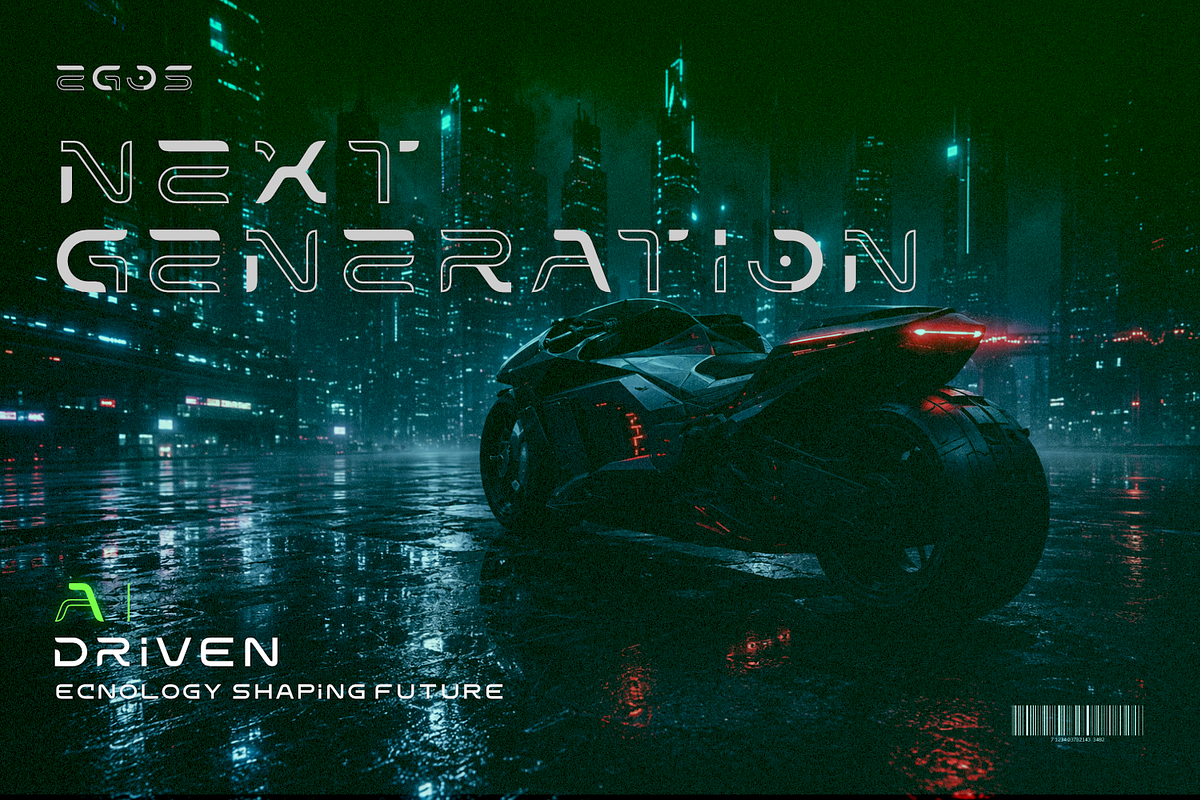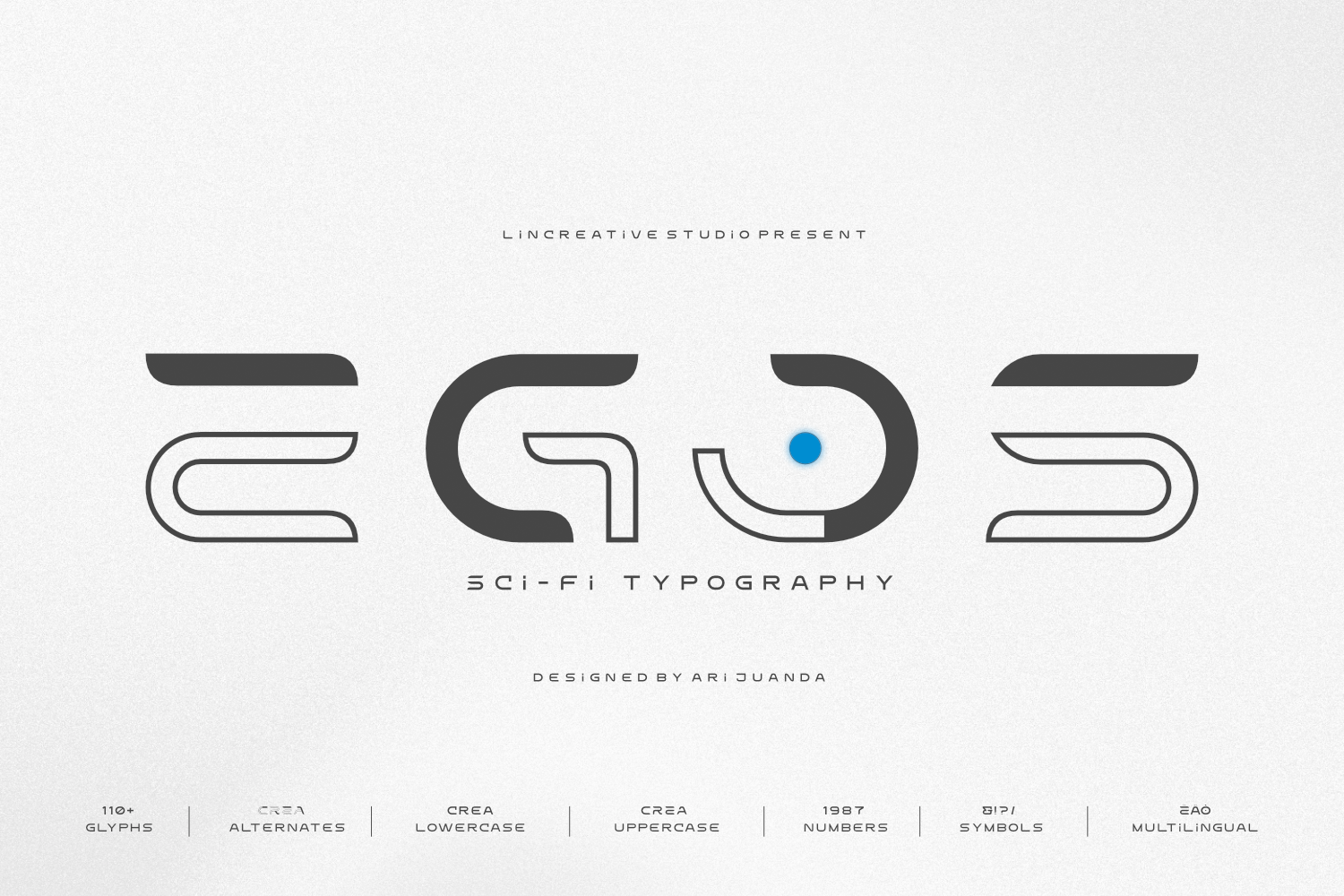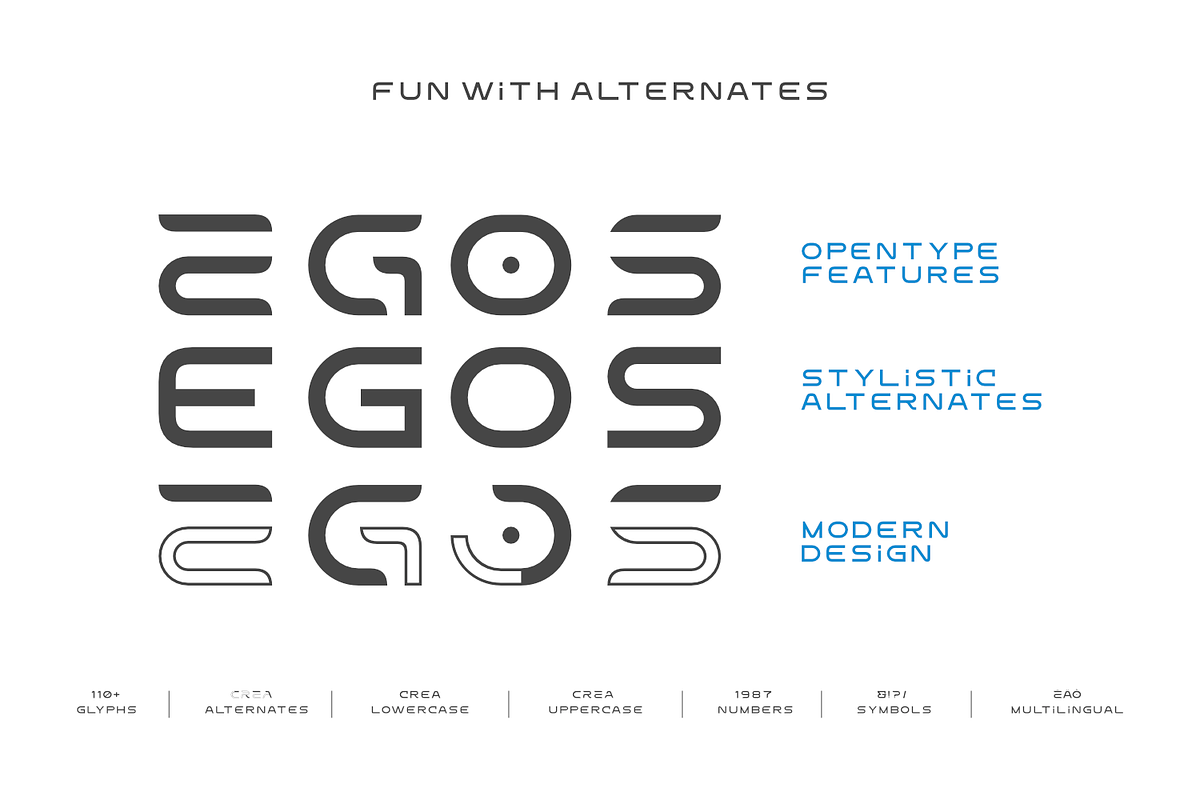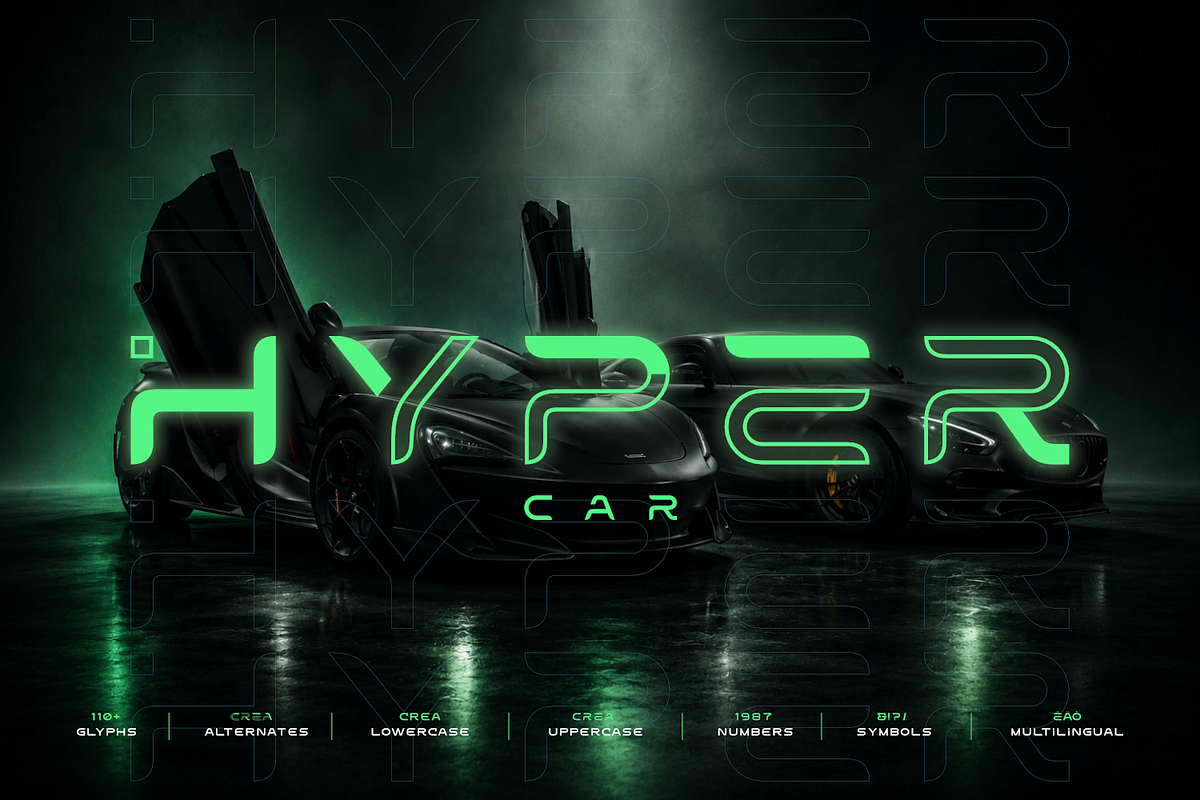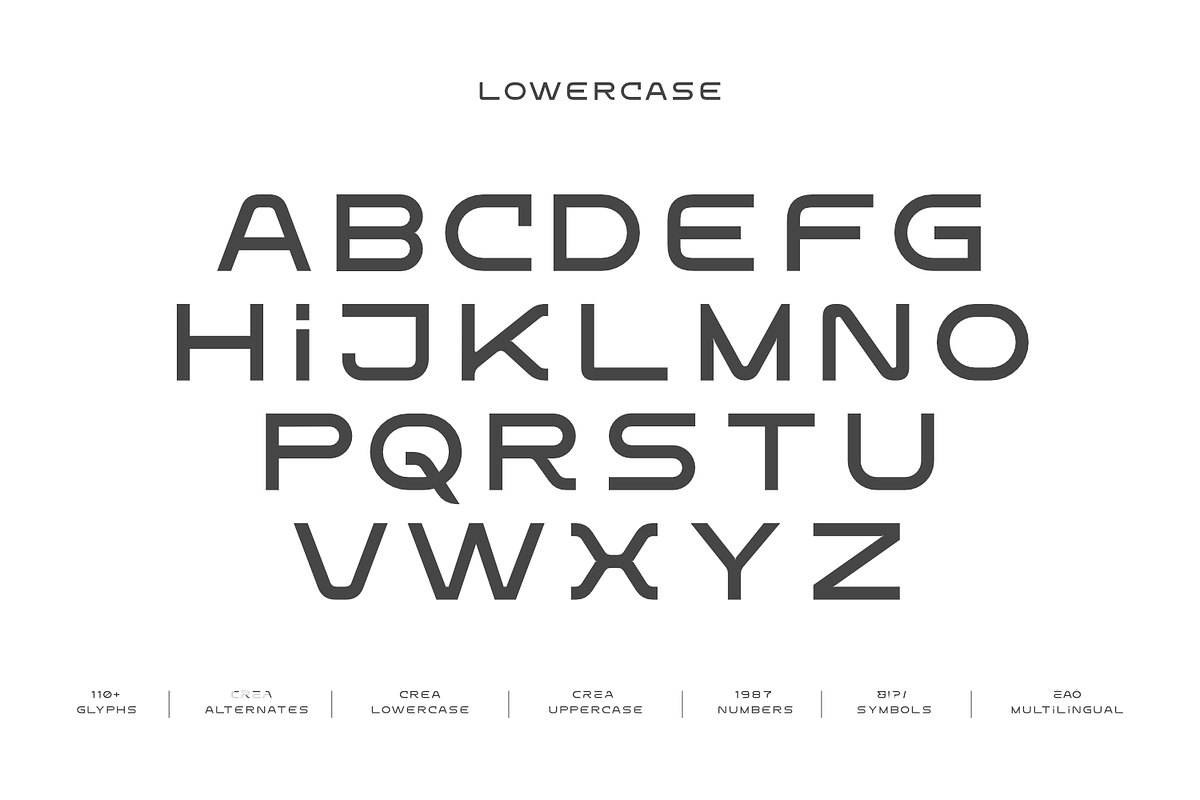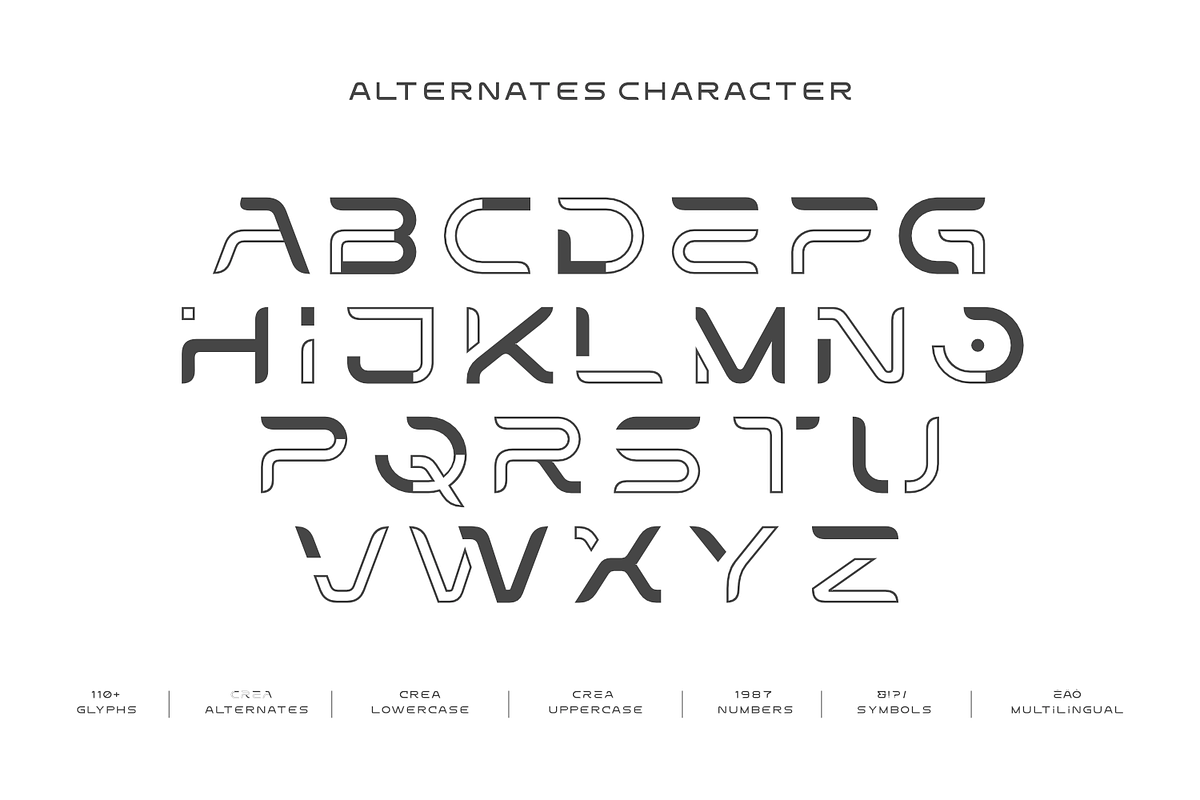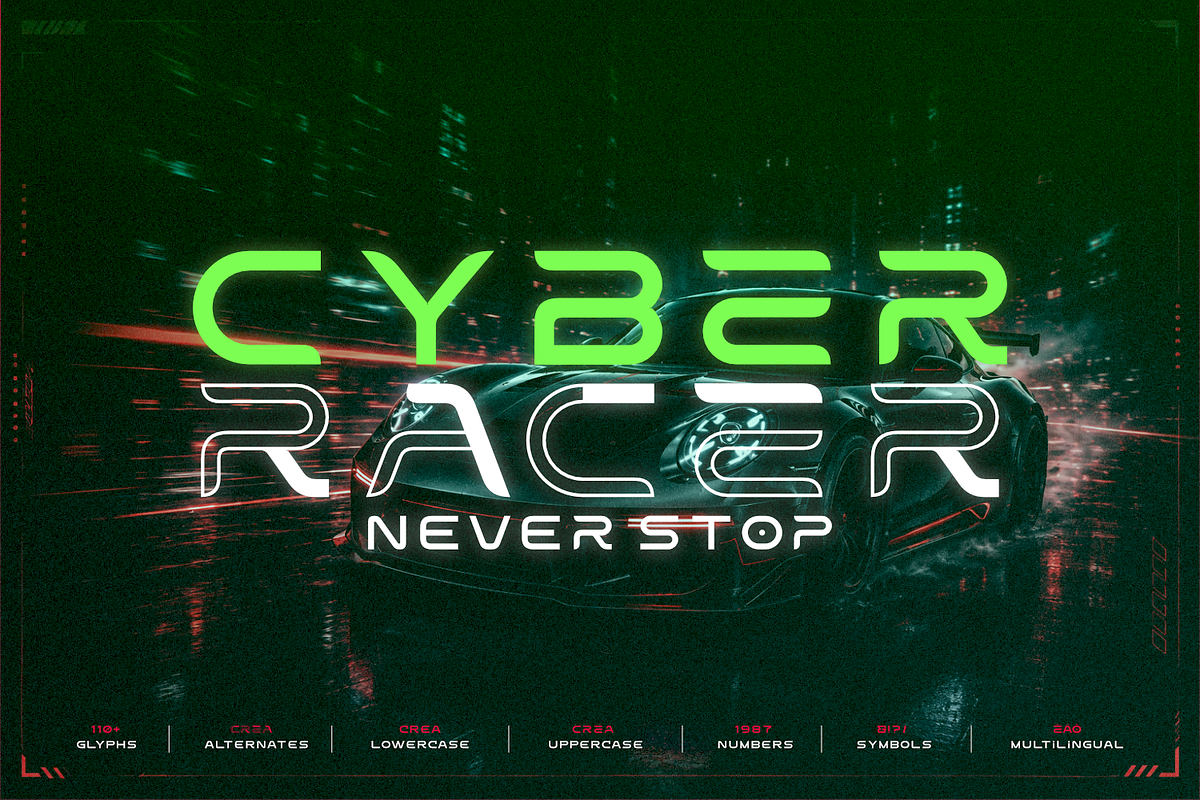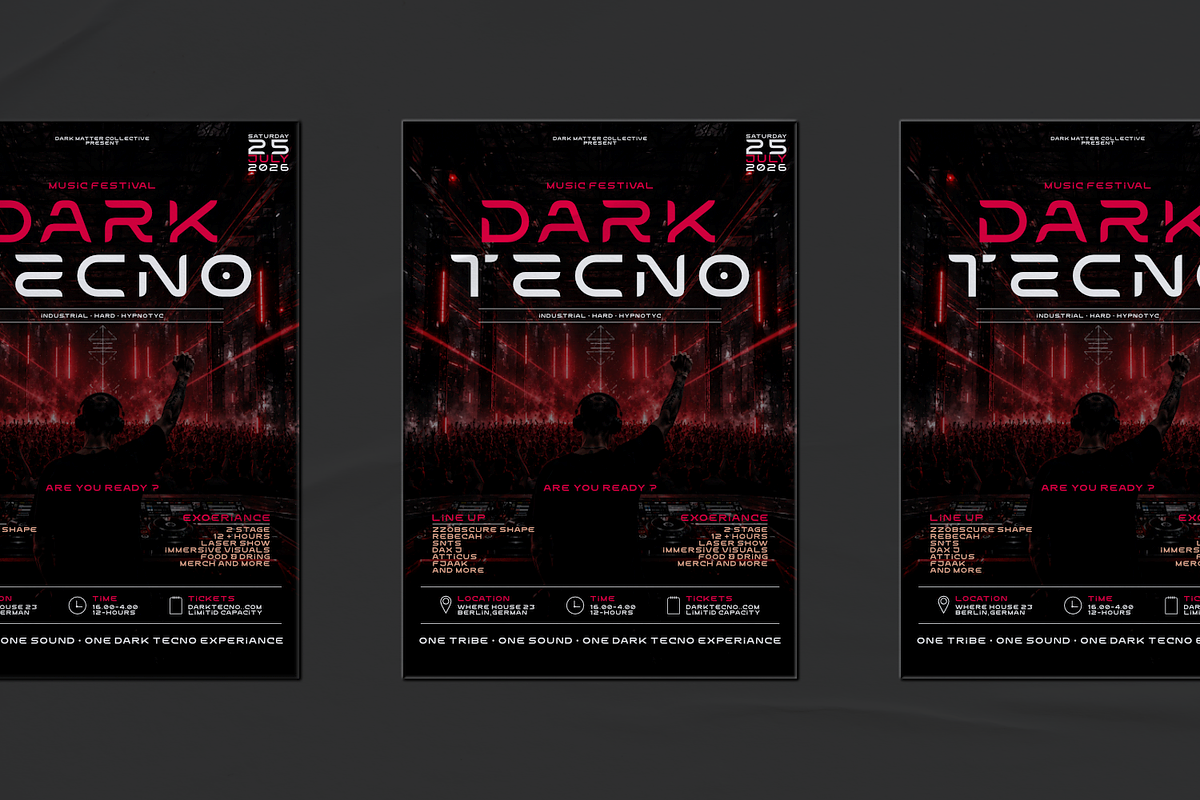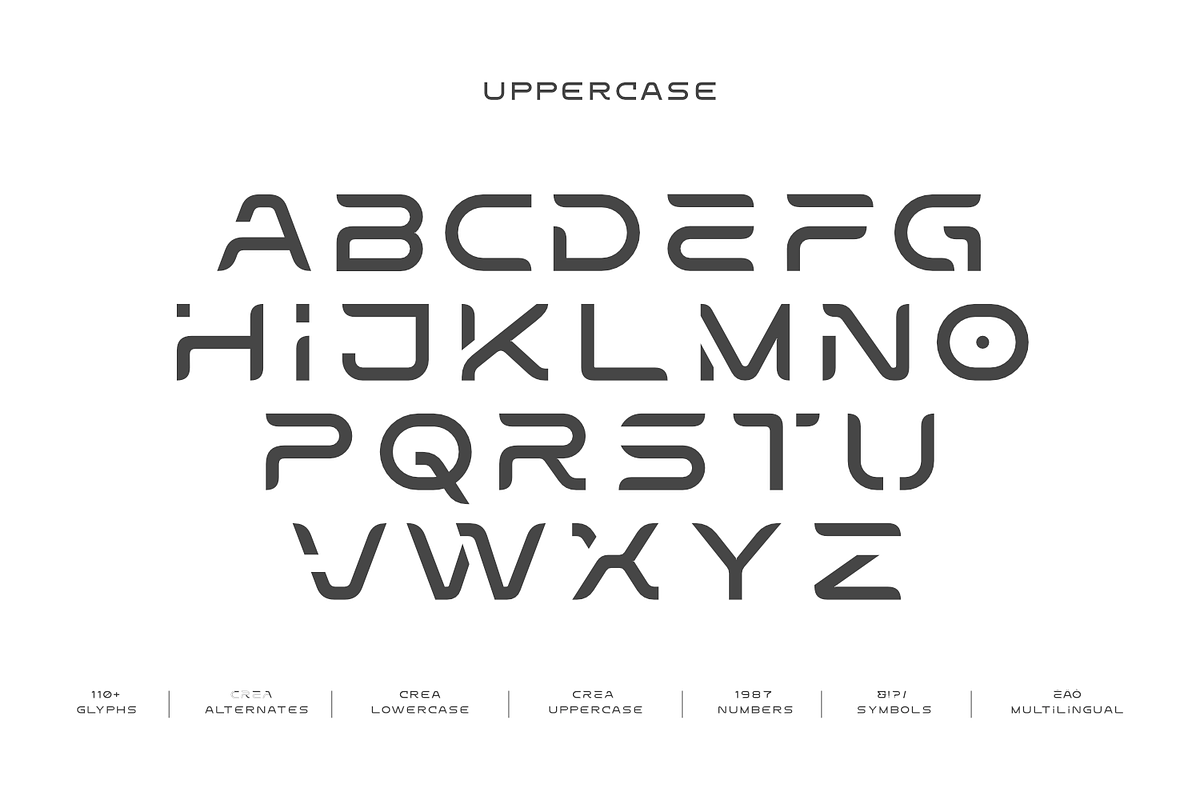
Egos-Futuristic Sci-Fi Display Font
EGOS – Futuristic Sci-Fi Display Font
EGOS is a futuristic display font inspired by advanced technology, cyberpunk aesthetics, and sleek sci-fi interfaces. Designed with clean geometric forms and precision-cut details, every character delivers a modern, high-tech appearance while maintaining excellent readability.
Whether you're building a futuristic brand, designing an esports identity, creating an electronic music poster, or developing visuals for a sci-fi project, EGOS gives your work a bold technological personality that instantly captures attention.
Its carefully crafted Stylistic Alternates let you explore multiple character combinations, making every headline feel unique, dynamic, and professionally crafted.
From neon-lit cyber cities to cutting-edge digital concepts, EGOS is made for creators who want to design the future.
Futuristic Logos
Cyberpunk Branding
Gaming & Esports
Sci-Fi Movie Titles
Tech Startups
Electronic Music Posters
DJ Branding
UI & HUD Concepts
YouTube Covers
Automotive & EV Branding
Apparel Design
Digital Content
110+ Glyphs
Modern Geometric Design
Why You'll Love EGOS
Modern design continues to evolve toward cleaner, smarter, and more futuristic aesthetics. EGOS reflects that evolution through balanced proportions, minimal construction, and distinctive cut details that give every word a sense of precision and innovation.
Rather than relying on overly complex futuristic shapes, EGOS focuses on clarity, versatility, and strong visual impact. The result is a display font that performs beautifully across branding, posters, packaging, digital media, and interface design.
If your project needs a typeface that feels modern, precise, and built for tomorrow, EGOS is ready to elevate your ideas.
Design the Future. Create Without Limits.